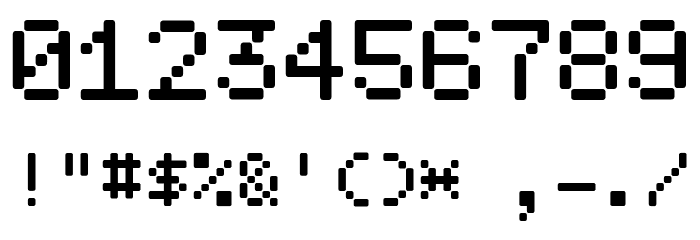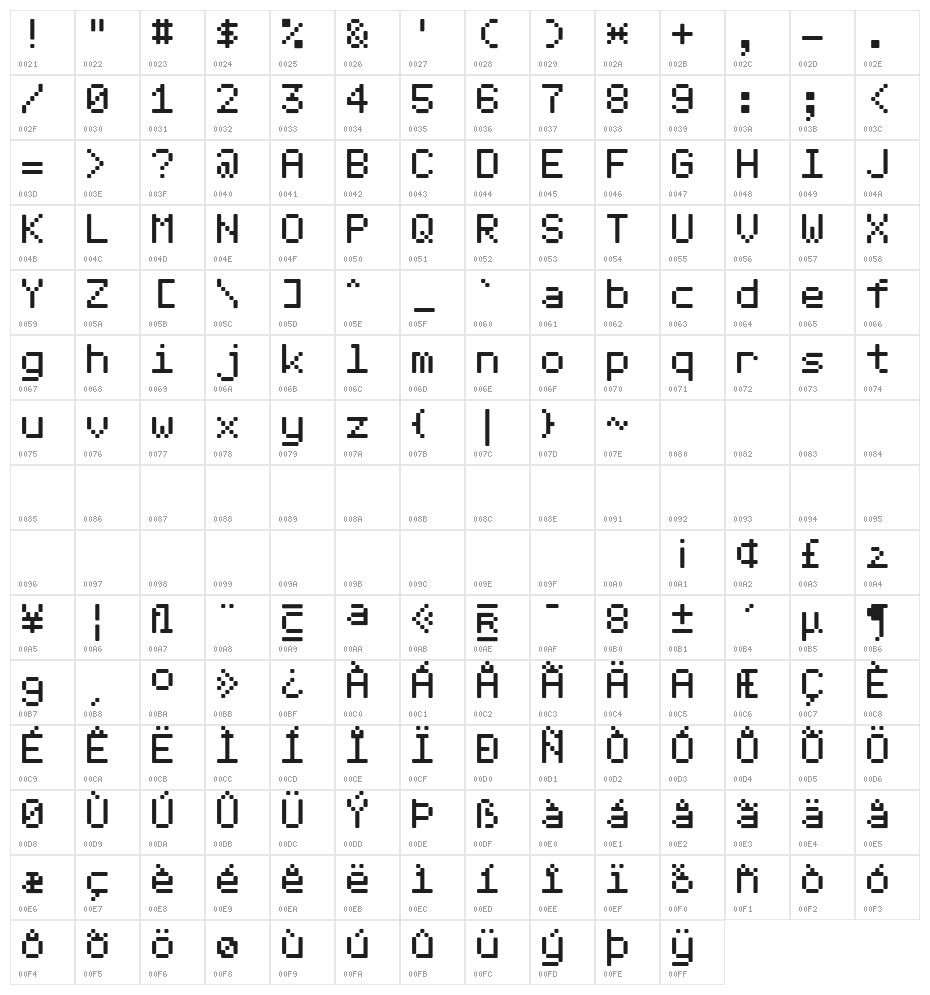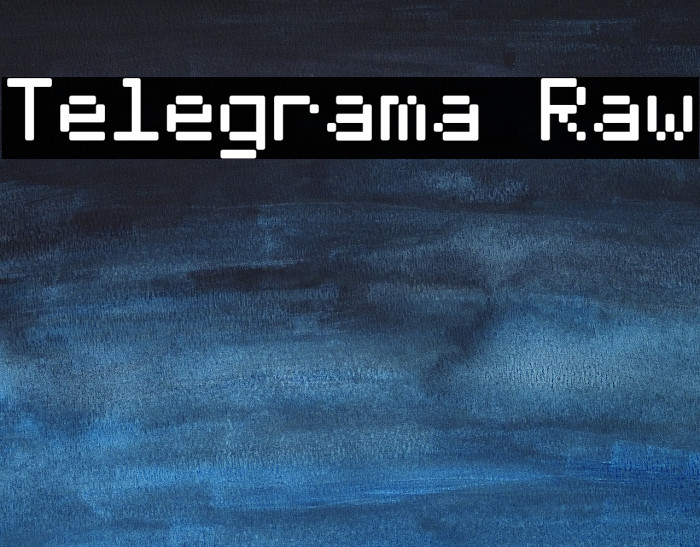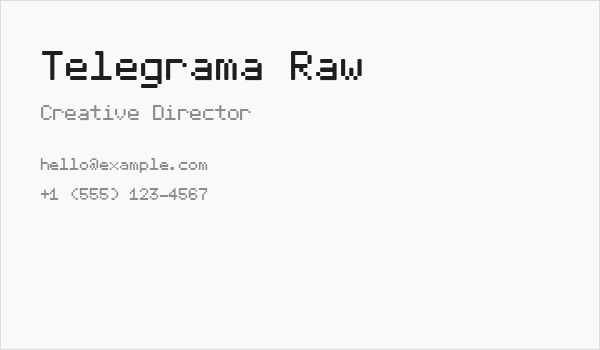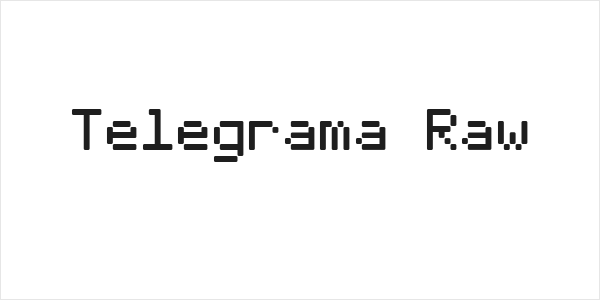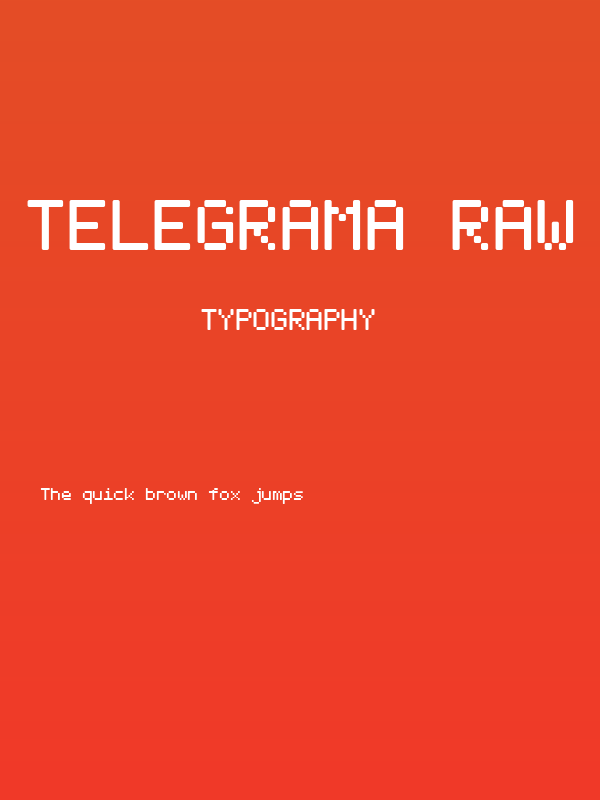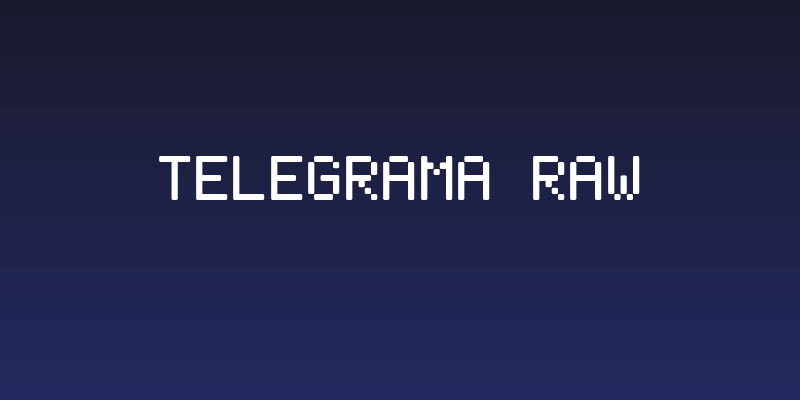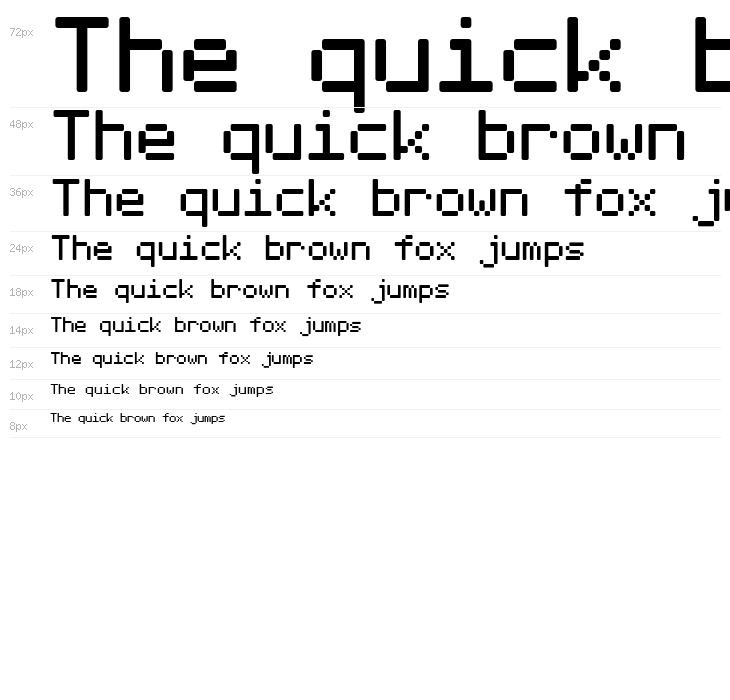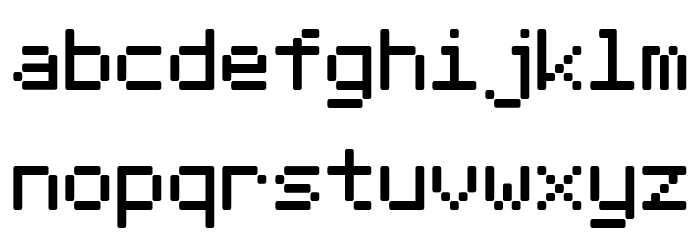
Telegrama Raw Font
Telegrama Raw Description
This font features a distinctive, pixelated style reminiscent of early digital displays and dot matrix printers. The characters are composed of small, square dots that form each letter and number, giving it a retro, digital aesthetic. The uppercase and lowercase letters maintain a consistent height and width, contributing to a uniform appearance. The numerals are similarly styled, ensuring a cohesive look across all characters. The special characters, including punctuation and symbols, are designed with the same pixelated approach, making them seamlessly integrate with the rest of the font. This font's unique design is perfect for projects that aim to evoke a sense of nostalgia or a digital, tech-inspired theme.
| Use Case | Logos, Headlines, Digital Art |
| Proposed Projects | Ideal for retro-themed designs, tech-related branding, video game graphics, and digital art projects. |